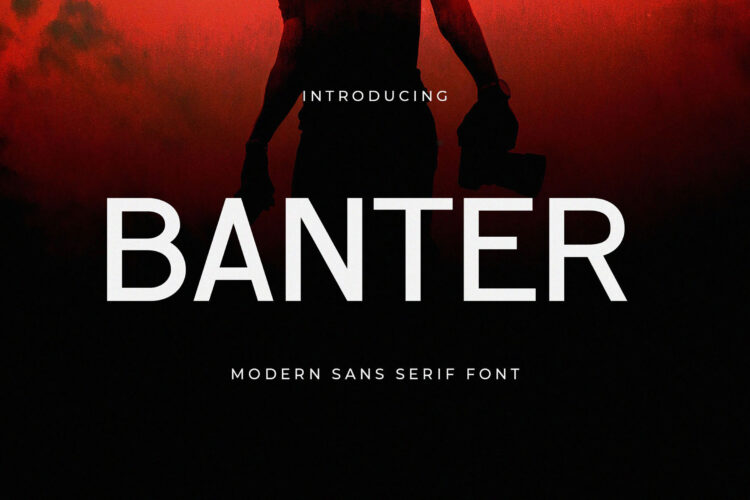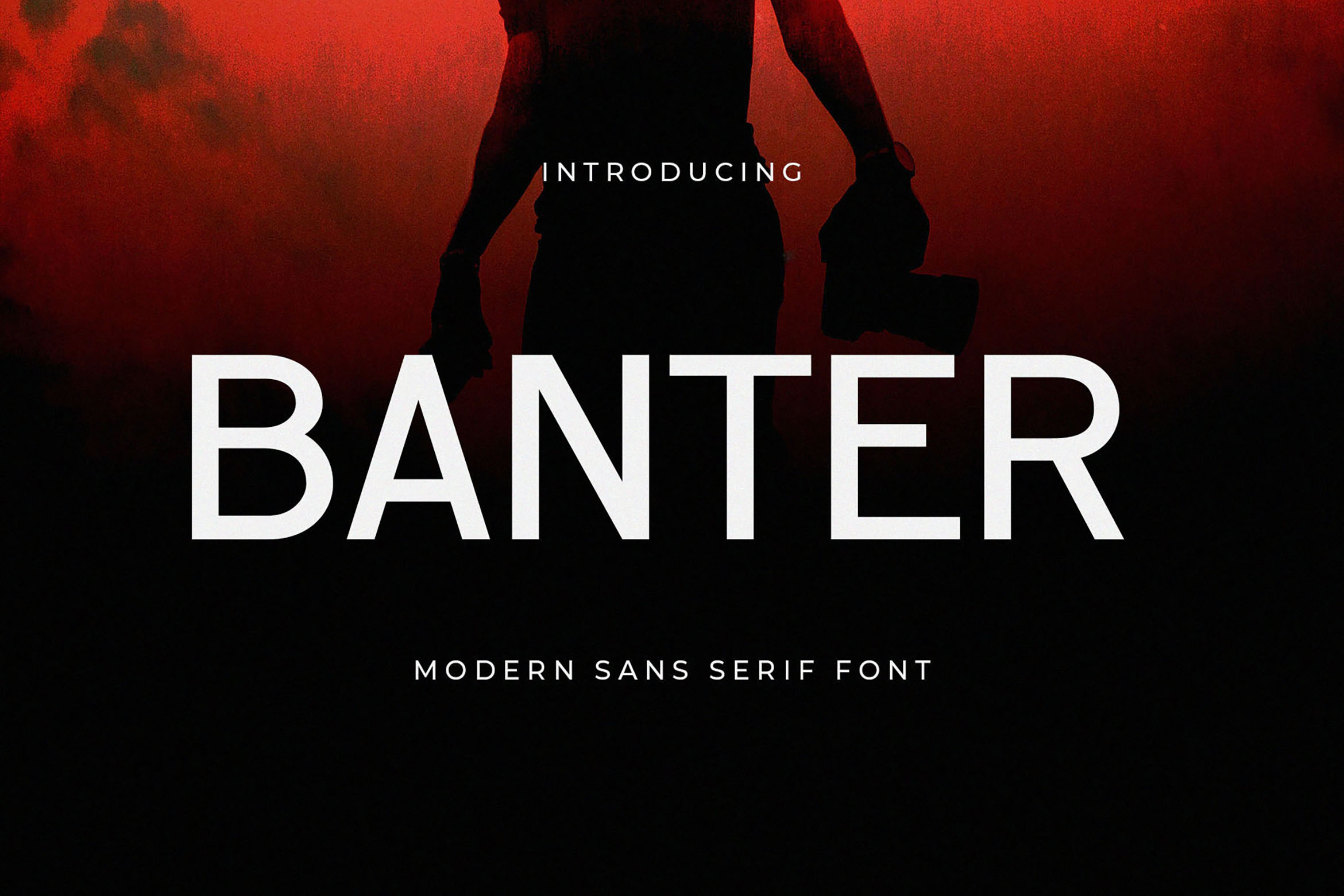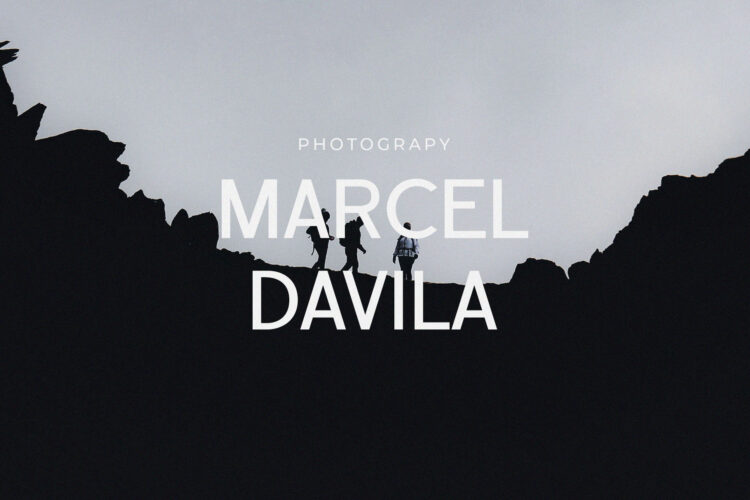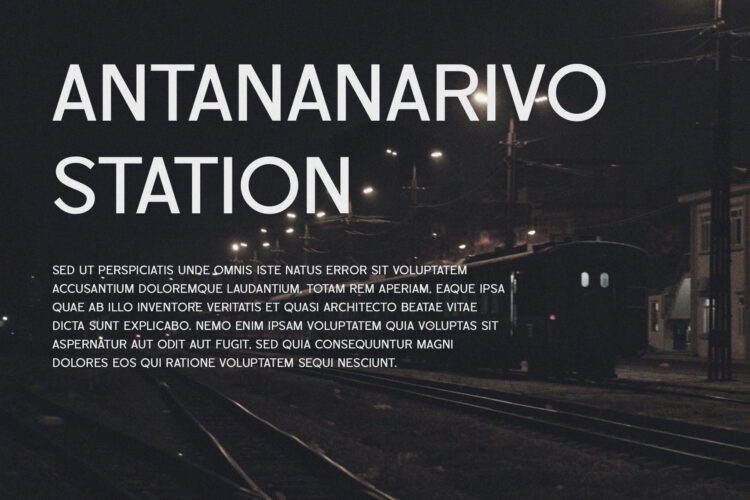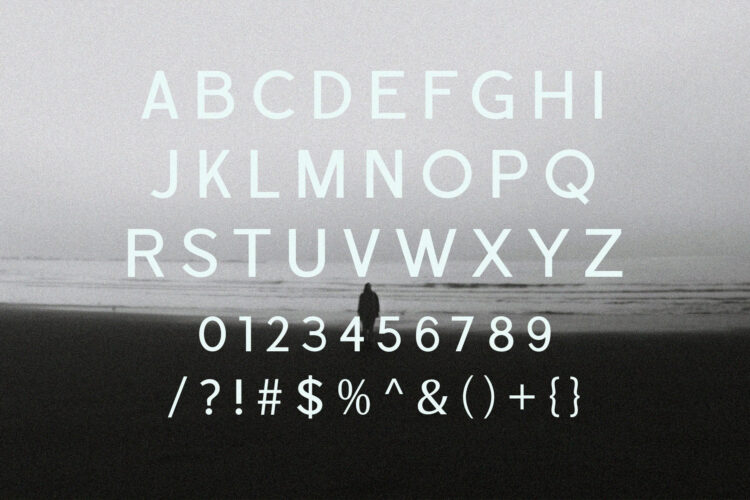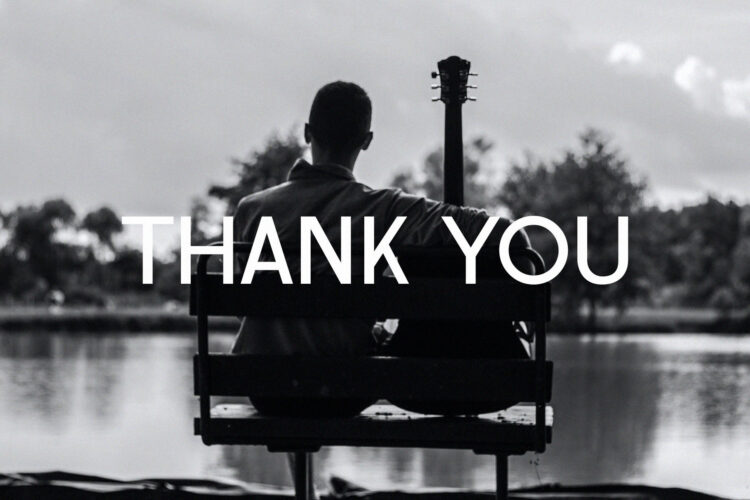
Introducing our new Banter, modern sans serif font with elegant style this is perfect for branding, logos, invitation, magazines, product packaging and more.
Banter – Modern Sans Serif Font